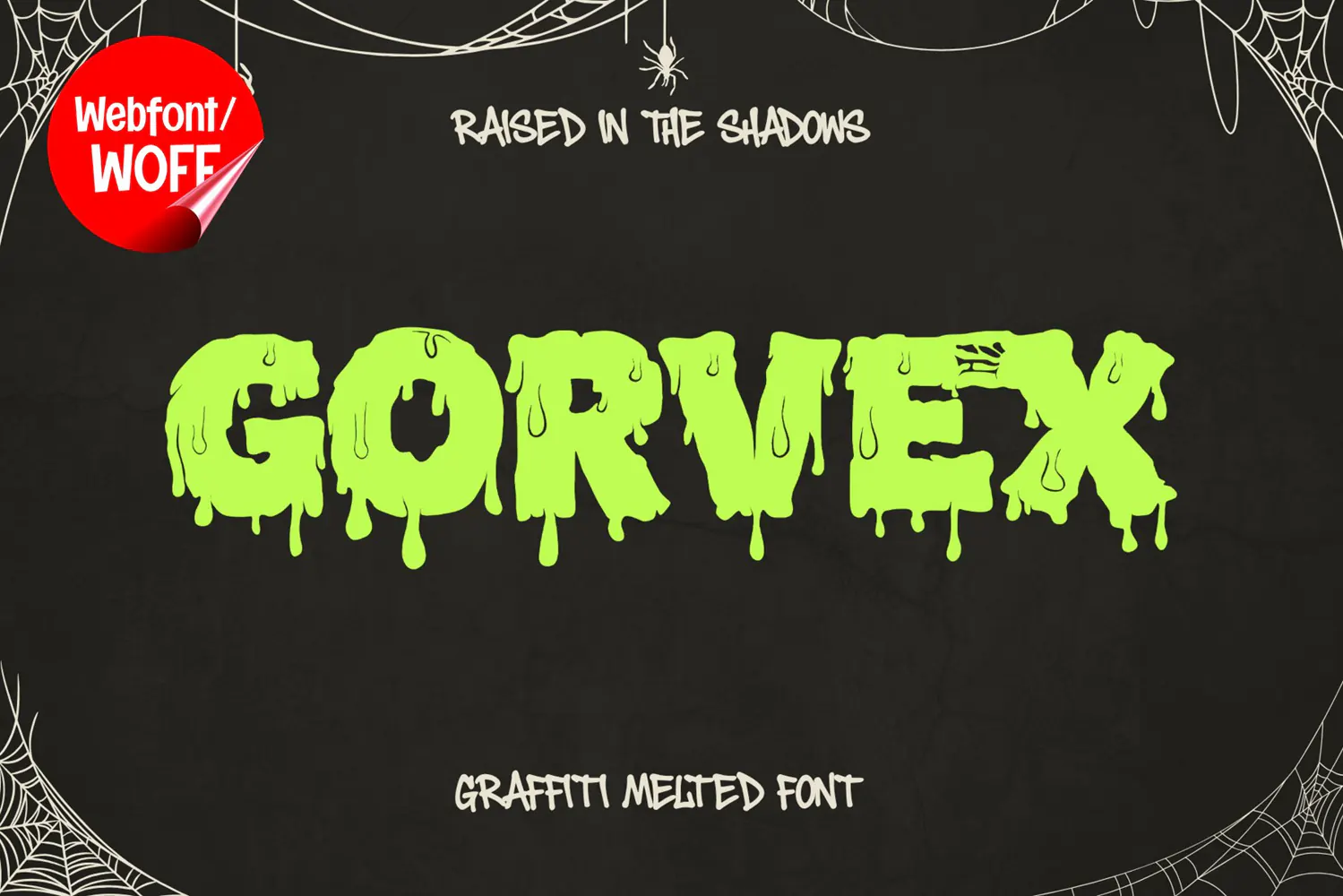
Gorvex Webfont Graffiti Melted Horror Font | Dripping Slime
Bring an edgy graffiti and melted horror aesthetic to your digital projects with Gorvex Webfont. Inspired by dripping slime, street graffiti, underground artwork, and creepy Halloween visuals, Gorvex features bold and heavy letterforms with fluid melted edges that create an instantly recognizable display style.
Designed for strong visual impact, Gorvex is ideal for website headlines, landing pages, gaming websites, online stores, event promotions, music websites, digital posters, social media campaigns, and streetwear branding. Its thick letterforms are especially effective for large titles, hero sections, promotional banners, and other prominent display typography.
The dripping appearance gives Gorvex a distinctive liquid and grunge-inspired character, making it suitable for both spooky and urban creative projects. Use it for Halloween campaigns, horror-themed websites, graffiti-inspired brands, gaming communities, music releases, streetwear collections, digital merchandise, and underground event promotions.
Gorvex Webfont is designed for web-based typography, allowing you to bring its distinctive melted graffiti personality directly into your digital projects. Its unusual letterforms can help create a memorable visual identity for brands and websites looking for something outside conventional typography.
From creepy landing pages to bold streetwear websites, Gorvex adds a strong combination of graffiti energy, horror attitude, slime aesthetics, and rebellious urban style.
• Melted graffiti display style